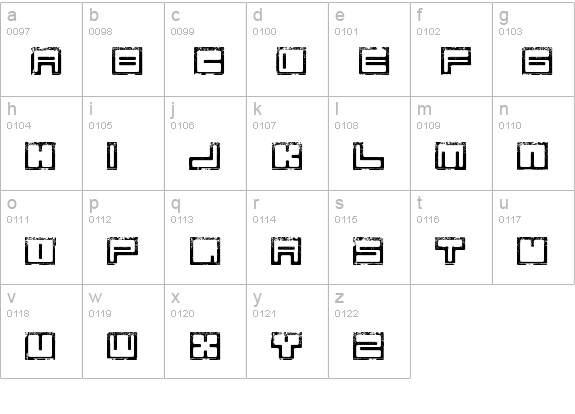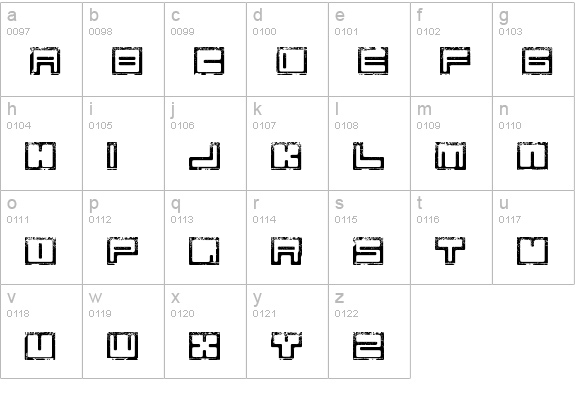
Bim eroded is a free for personal use font in the Modern > Sci-Fi category. It has been downloaded 15 times and is available for Windows, Mac and Linux.
Introducing Bim Eroded Font, a captivating typeface that effortlessly combines edginess with a touch of decay. This unique font is perfect for those seeking to add a gritty and weathered aesthetic to their designs. Bim Eroded Font features a distinct eroded texture that gives each character a worn and aged appearance. Every letter is meticulously crafted, showcasing an intricate level of detail that adds depth and character to any project. With its bold and rugged style, Bim Eroded Font is ideal for a wide range of creative applications. From vintage-inspired designs to urban-themed projects, this font is sure to make a statement and leave a lasting impression. But what makes Bim Eroded Font even more enticing is that it is completely free to download at FontsMarket.com. That's right, you can easily access this remarkable typeface without spending a dime. Whether you're a professional designer or a hobbyist, this font offers endless possibilities for your creative endeavors. So why wait? Enhance your designs with the captivating charm of Bim Eroded Font. Download it for free today at FontsMarket.com and unleash your creativity like never before.